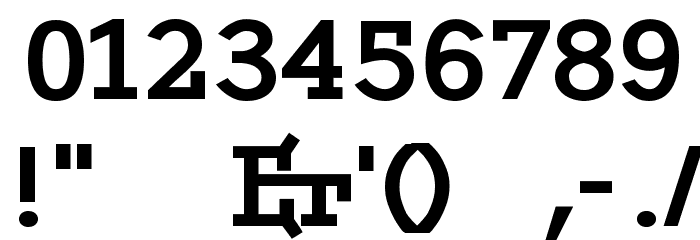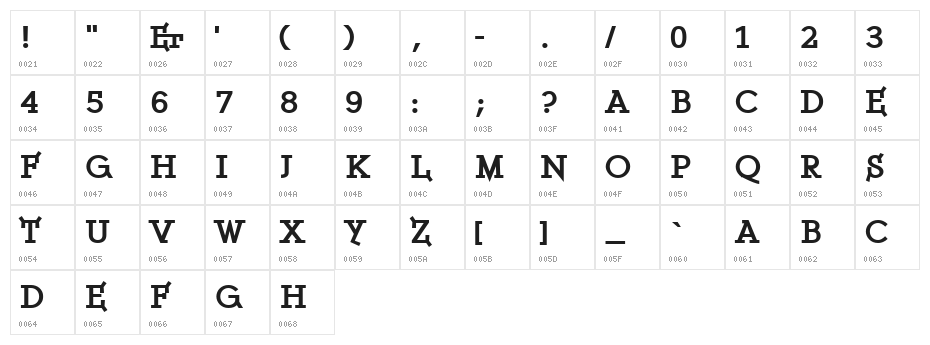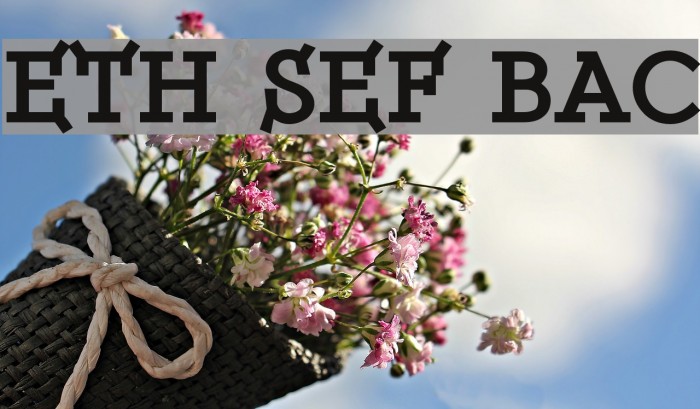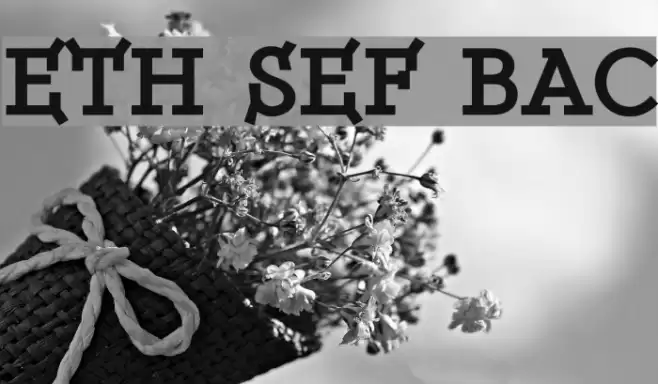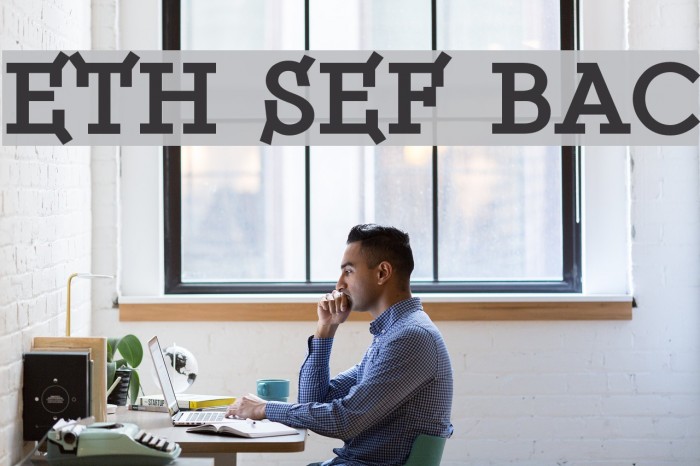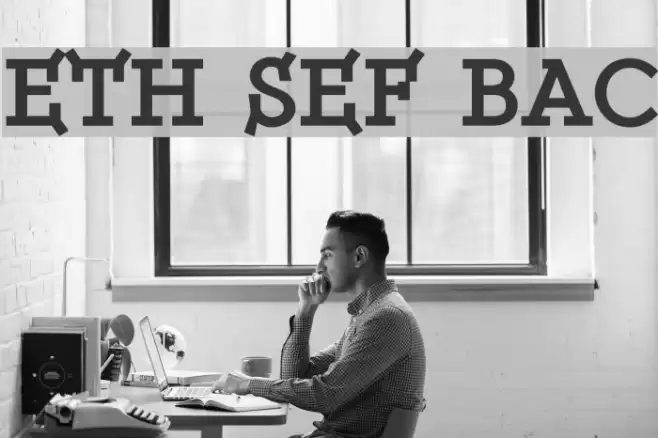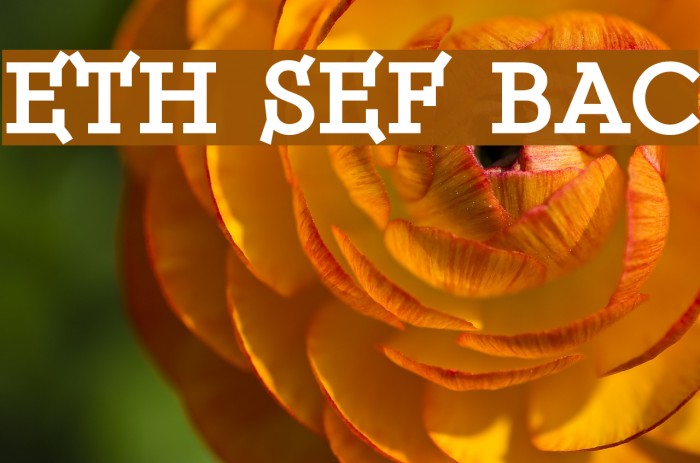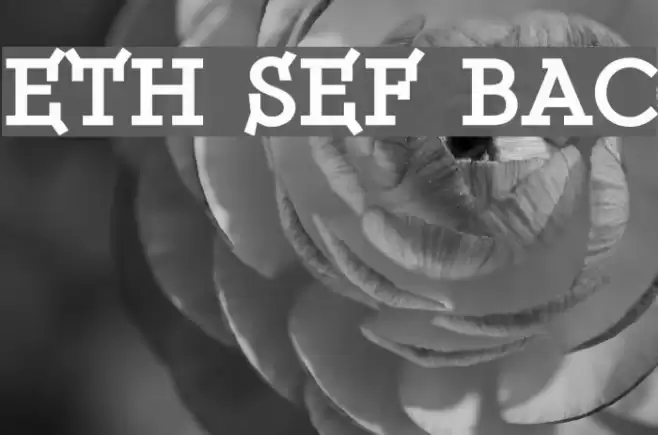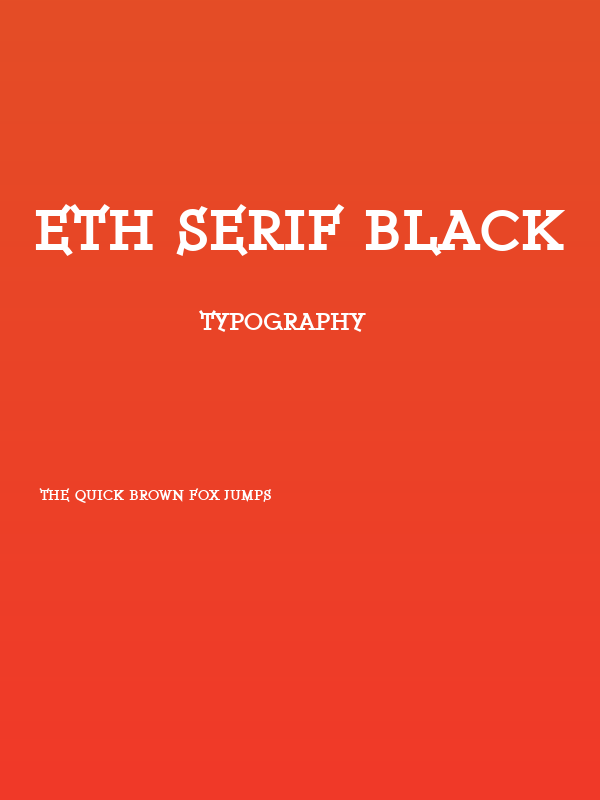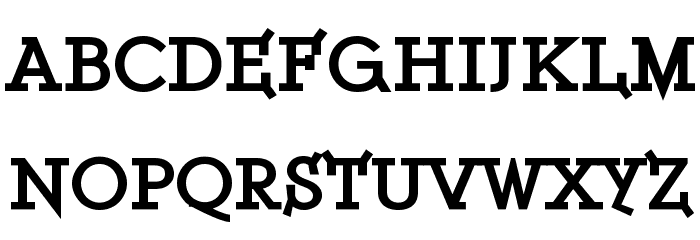
ETH Serif Black Font
ETH Serif Black Description
This font features a bold and striking serif style with strong, angular lines and pronounced serifs that give it a distinctive and authoritative appearance. The uppercase letters are particularly robust, with a consistent weight that enhances readability and impact. The numerals are equally bold, ensuring clarity and emphasis in any context. Special characters are designed with the same attention to detail, maintaining the font's cohesive aesthetic. The overall design is both classic and modern, making it versatile for various applications.
| Proposed Projects | Ideal for headlines, branding, posters, and any project requiring a strong, authoritative typeface. |